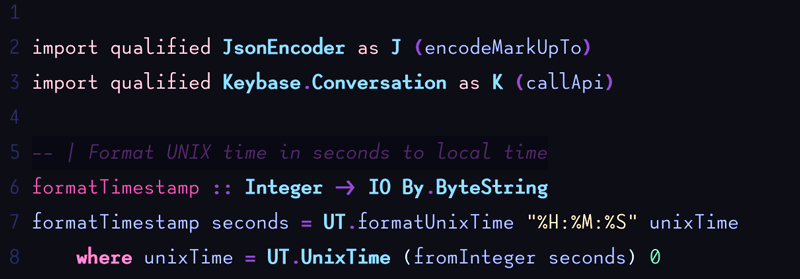
Lotion
Lotion is a fresh, cute free font for programming!
Features
Weights: Regular, SemiBold, Bold, Black
Styles: Roman & Italics
Now available as a variable font!
Supports most Western European languages
Support for Greek and Russian coming soon!